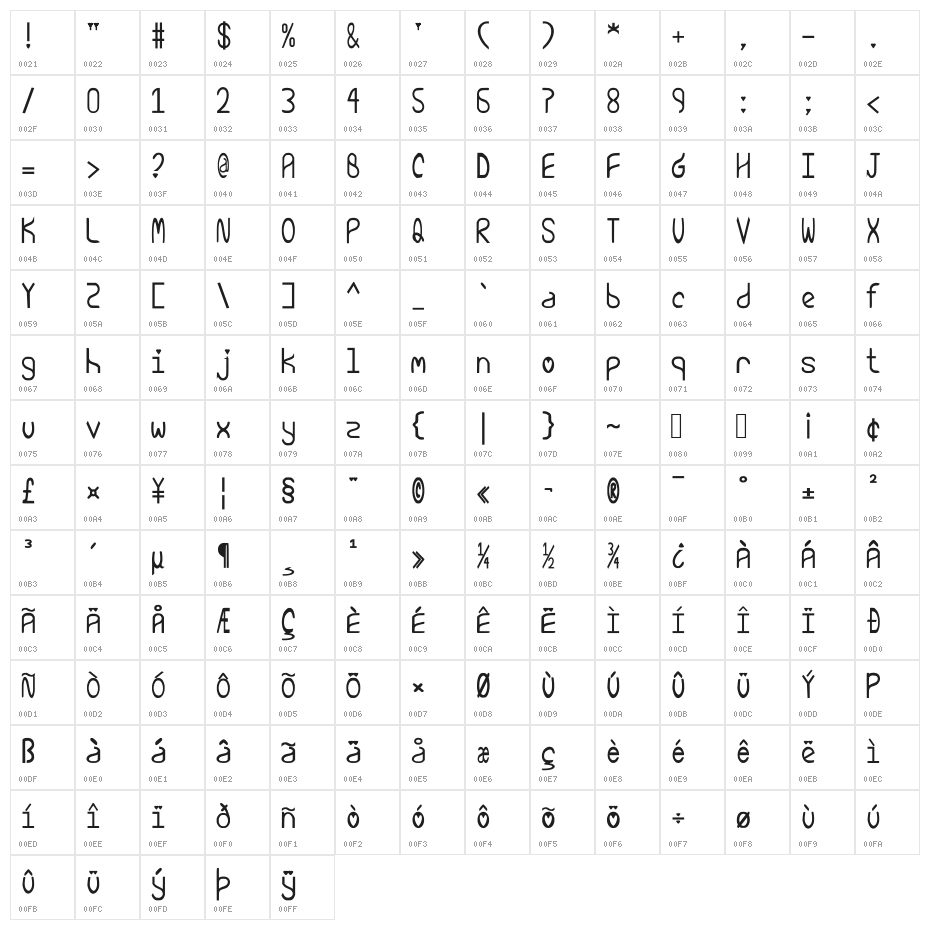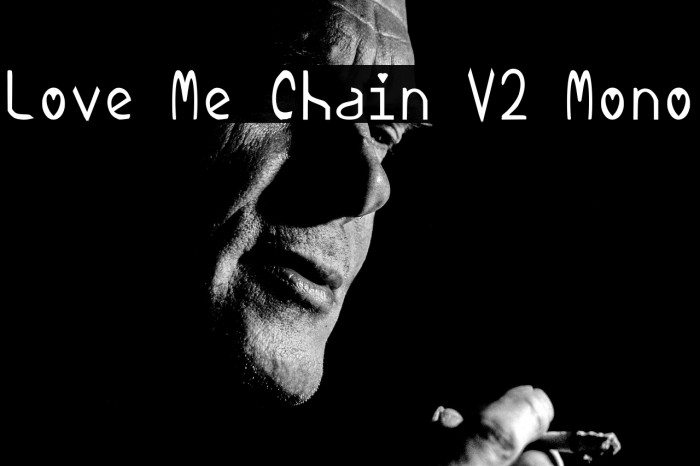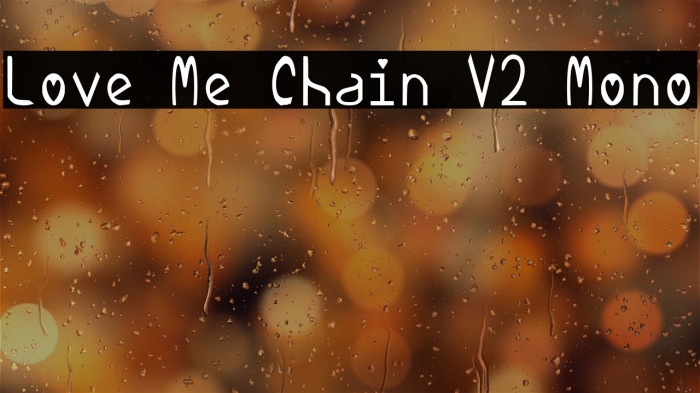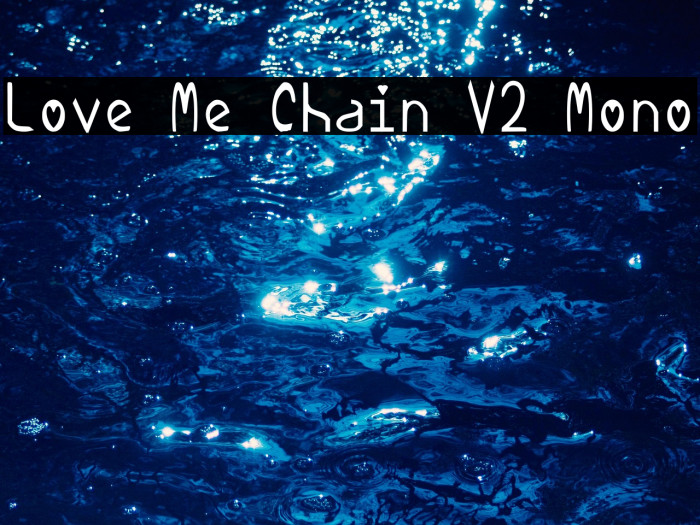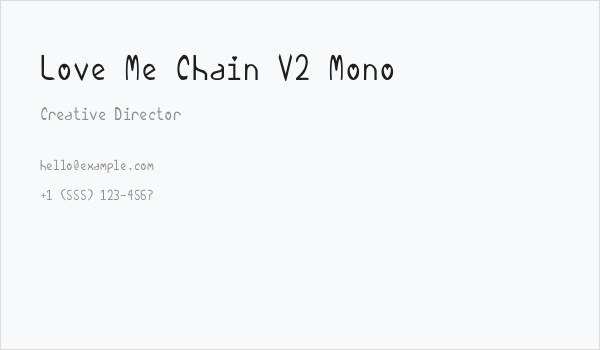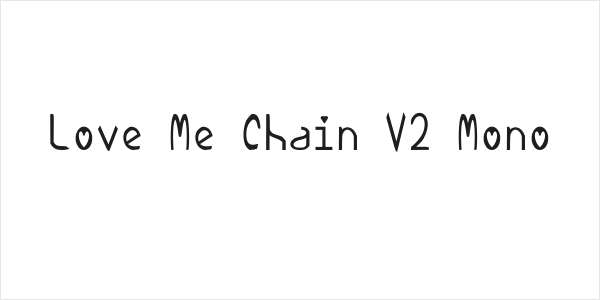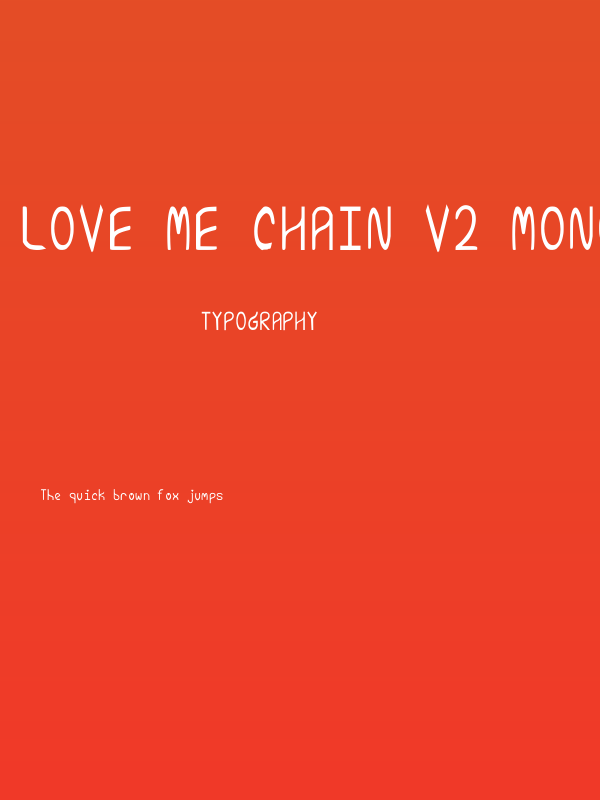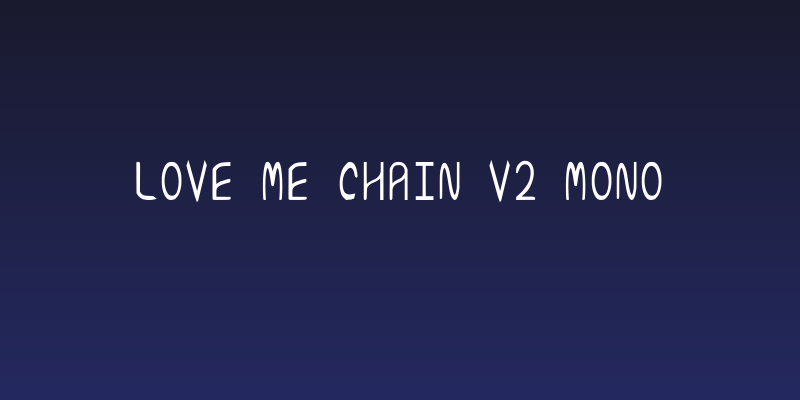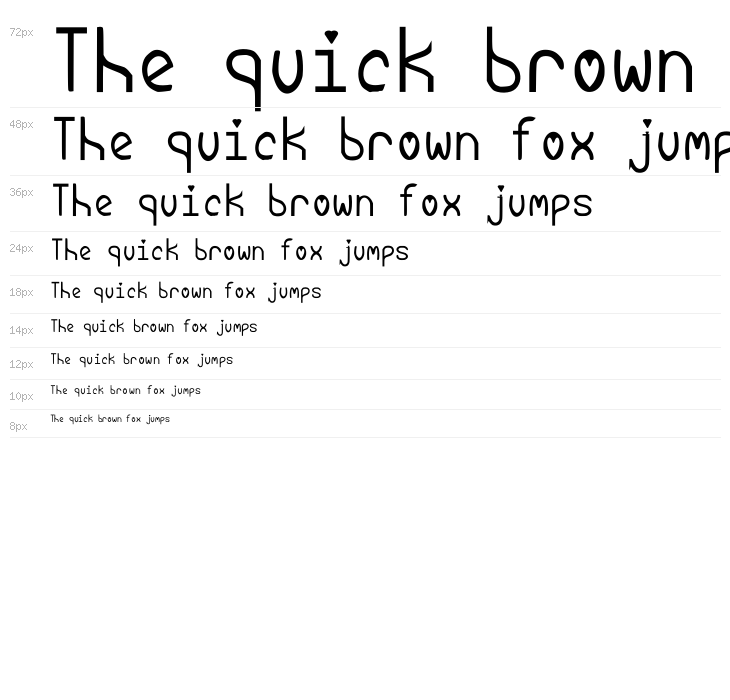
Love Me Chain V2 Mono Font
Love Me Chain V2 Mono Description
This font features a playful and whimsical design with a unique, hand-drawn appearance. The characters are slightly irregular, adding a charming and quirky touch. The uppercase and lowercase letters have a consistent style, with rounded edges and a friendly demeanor. The numerals and special characters maintain the same playful aesthetic, making the font suitable for creative and informal projects. The overall look is casual yet distinctive, with a touch of personality that stands out.